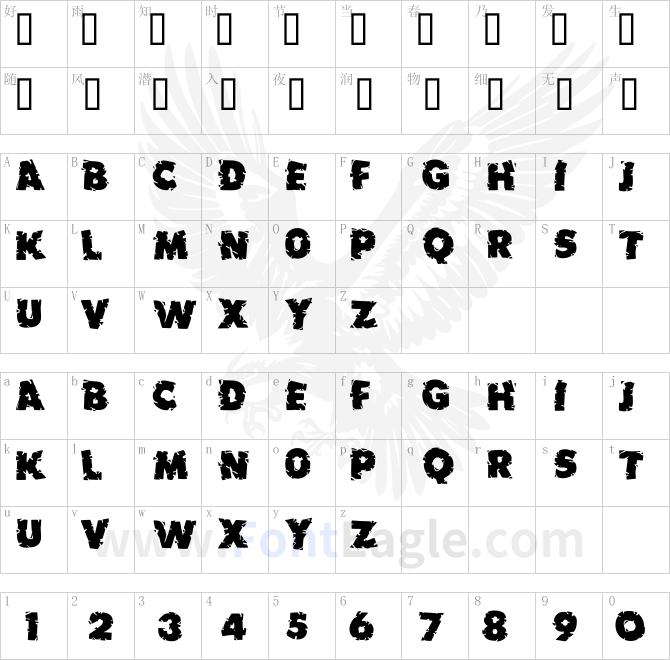
- Font name:Earthquake MF
- Font Subfamily ID:Altsys Fontographer 4.0 Earthquake MF
- Font Full Name:Earthquake MF
- Font Version:Altsys Fontographer 4.0 9/19/93
- Postscript:EarthquakeMF
- Font Copyright:1.01 Earthquake MF ©1993 By Richard William Mueller